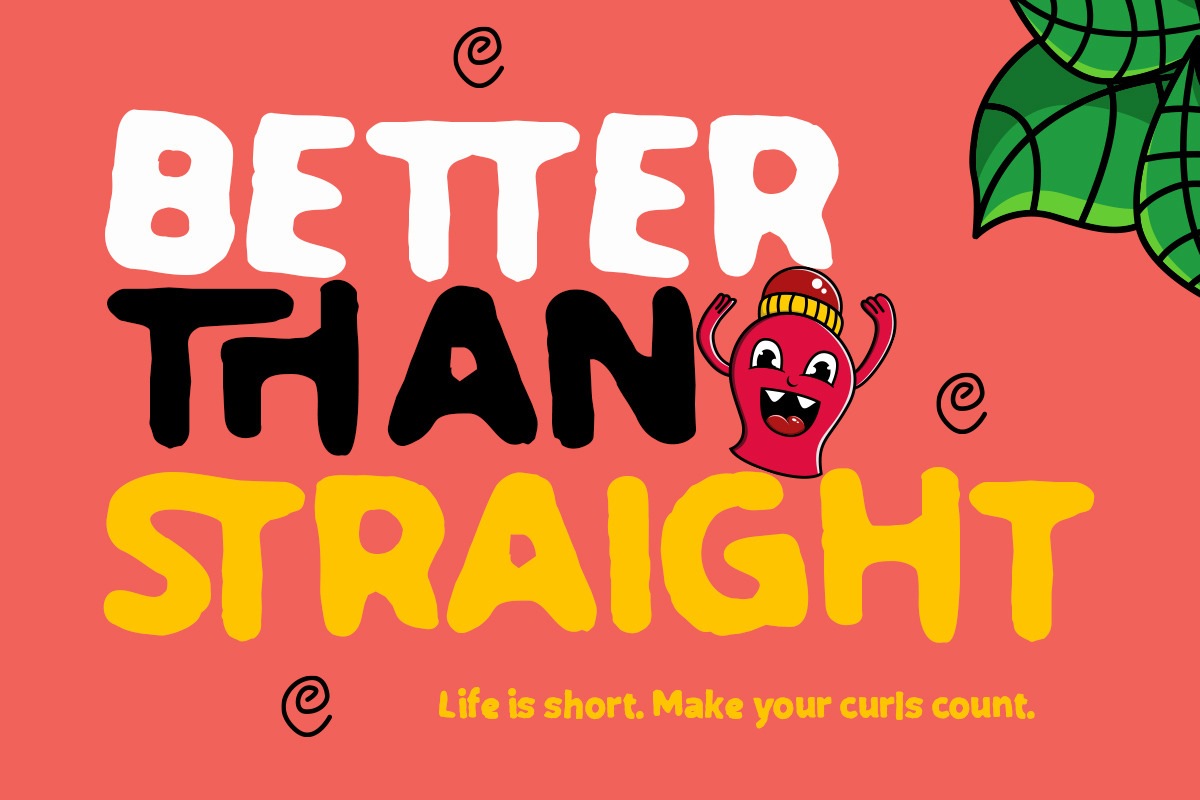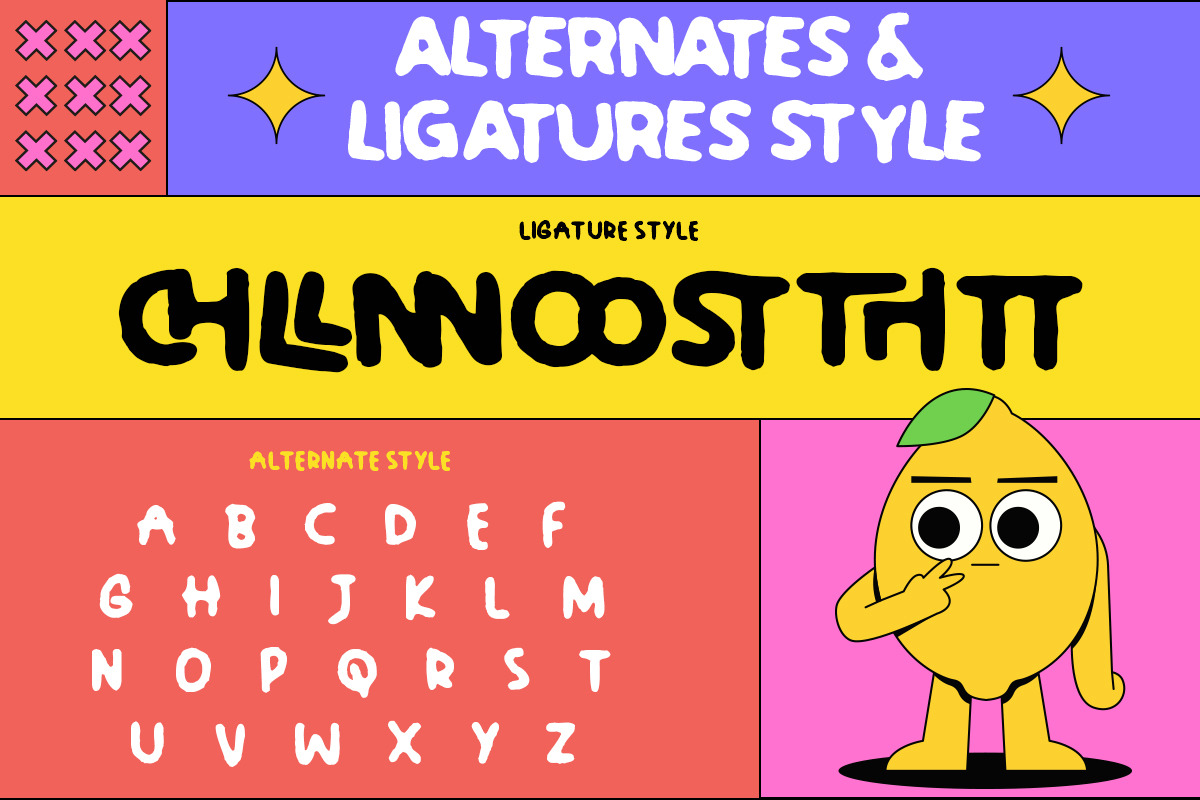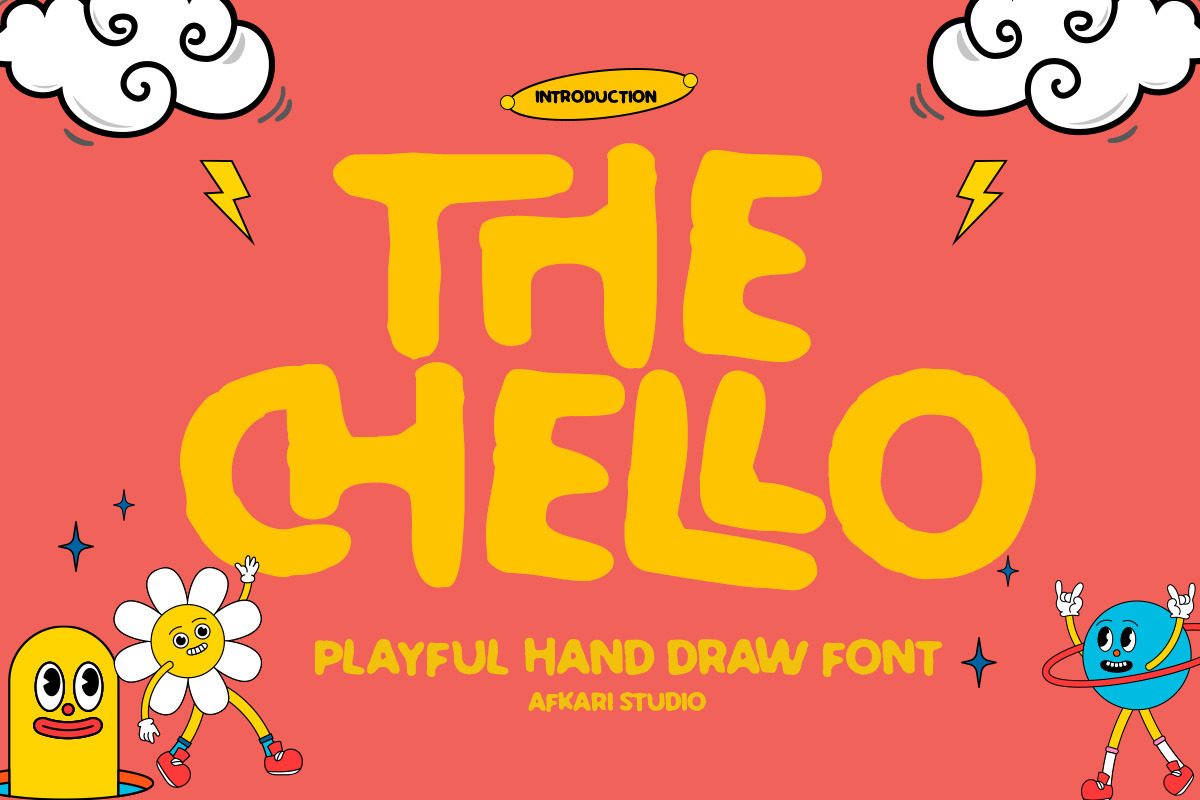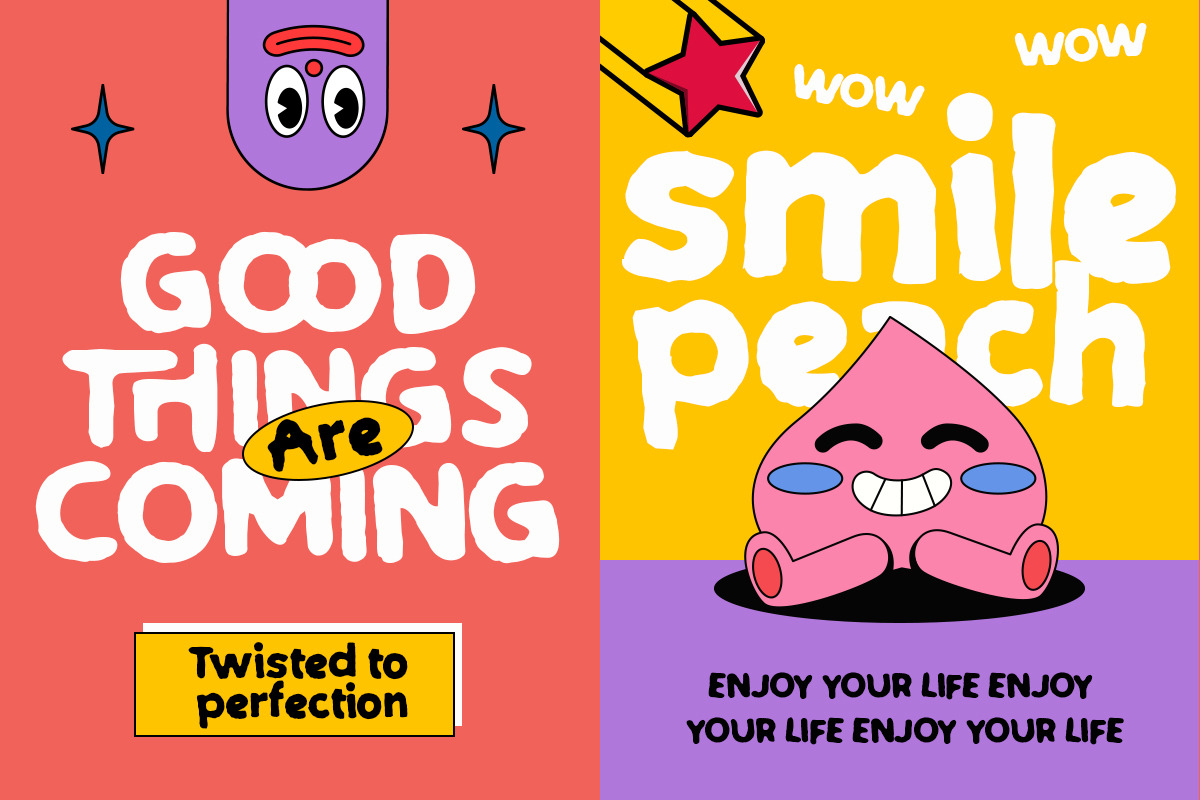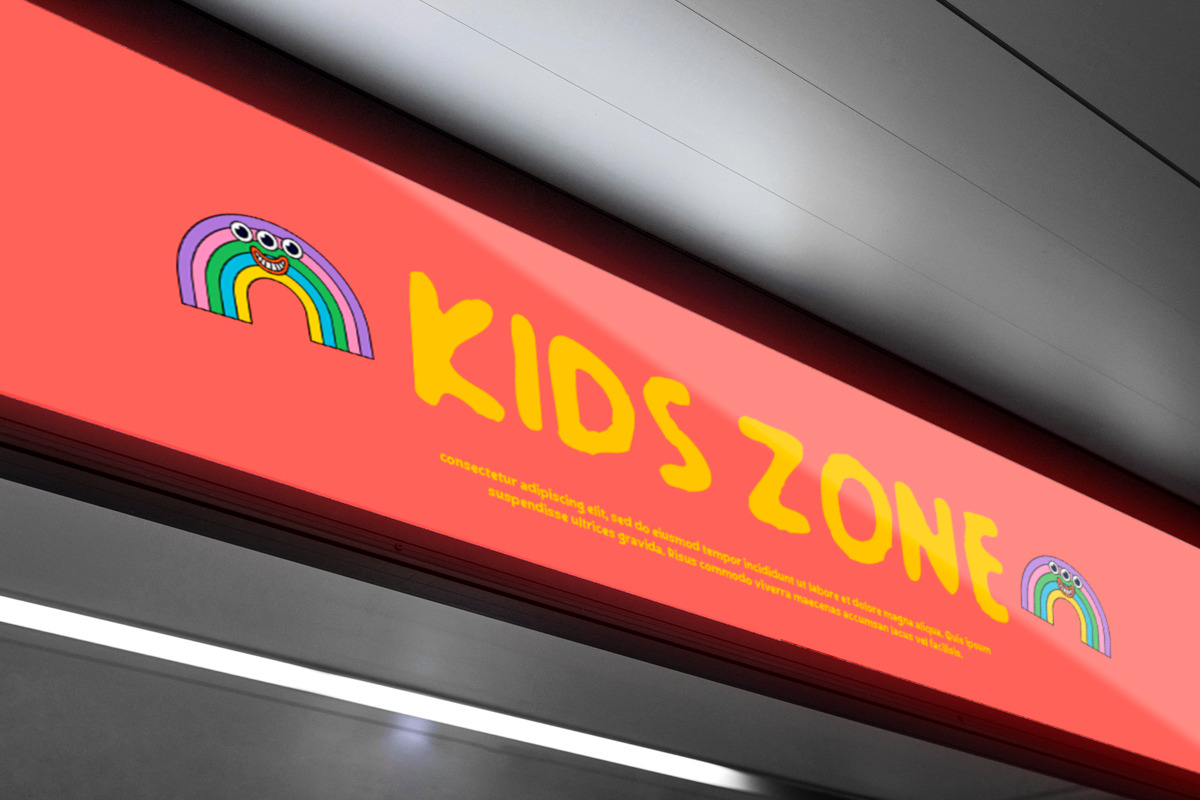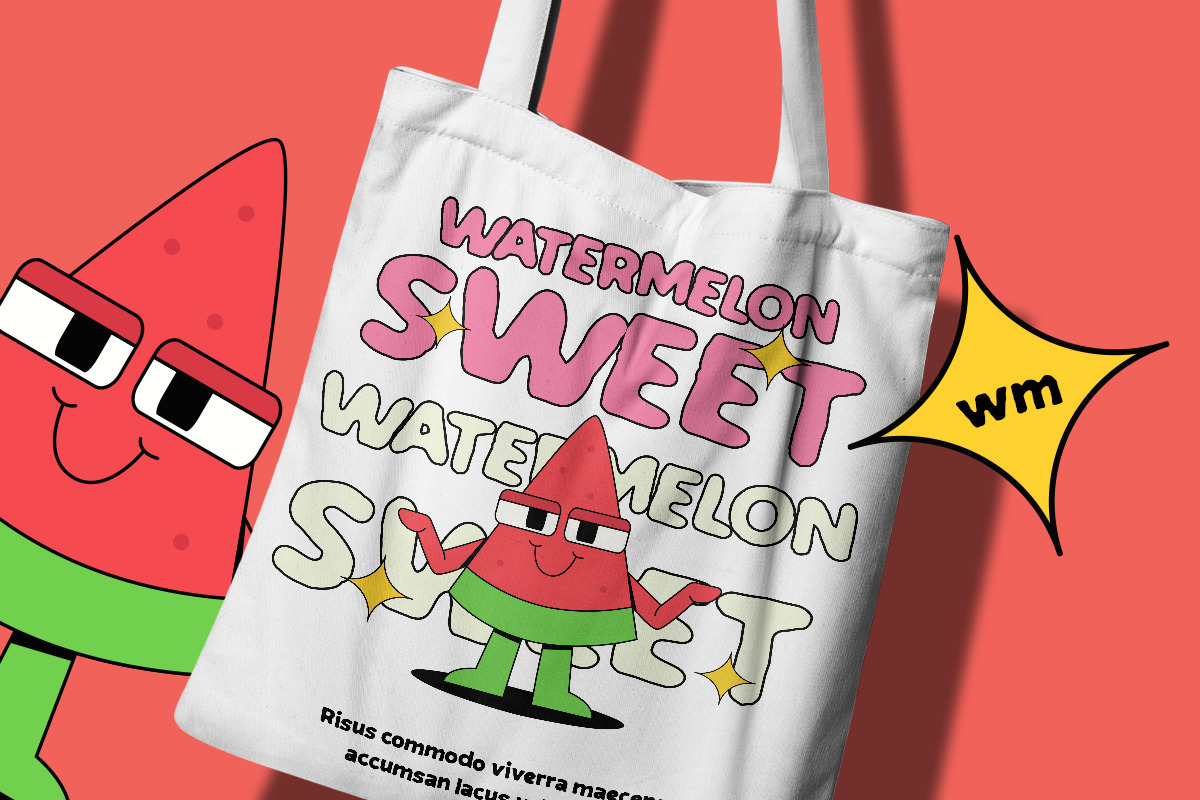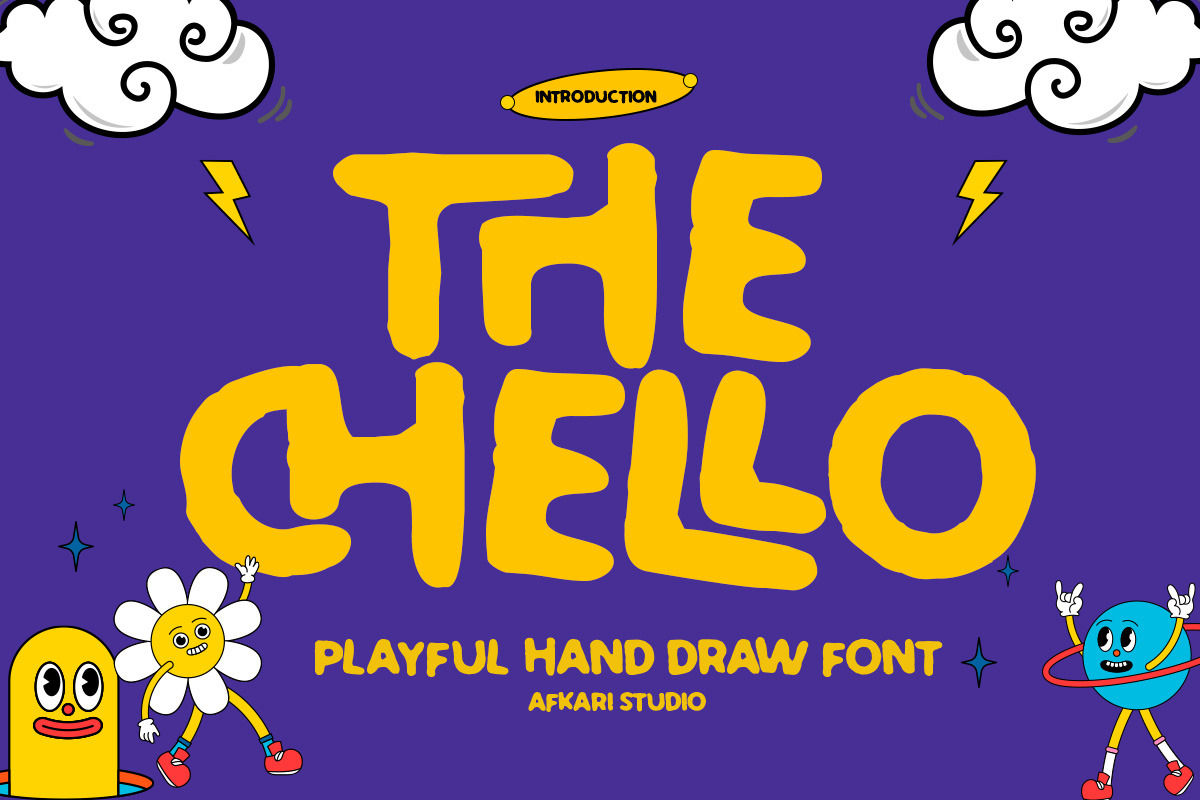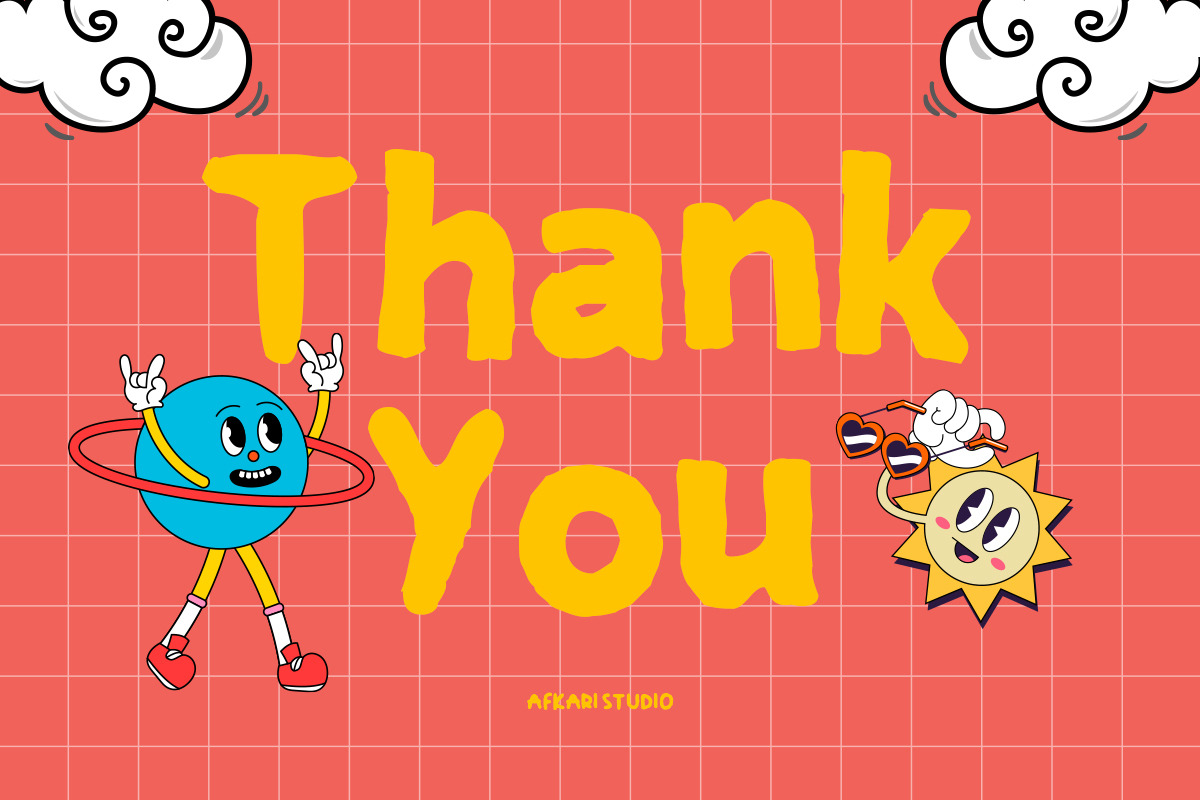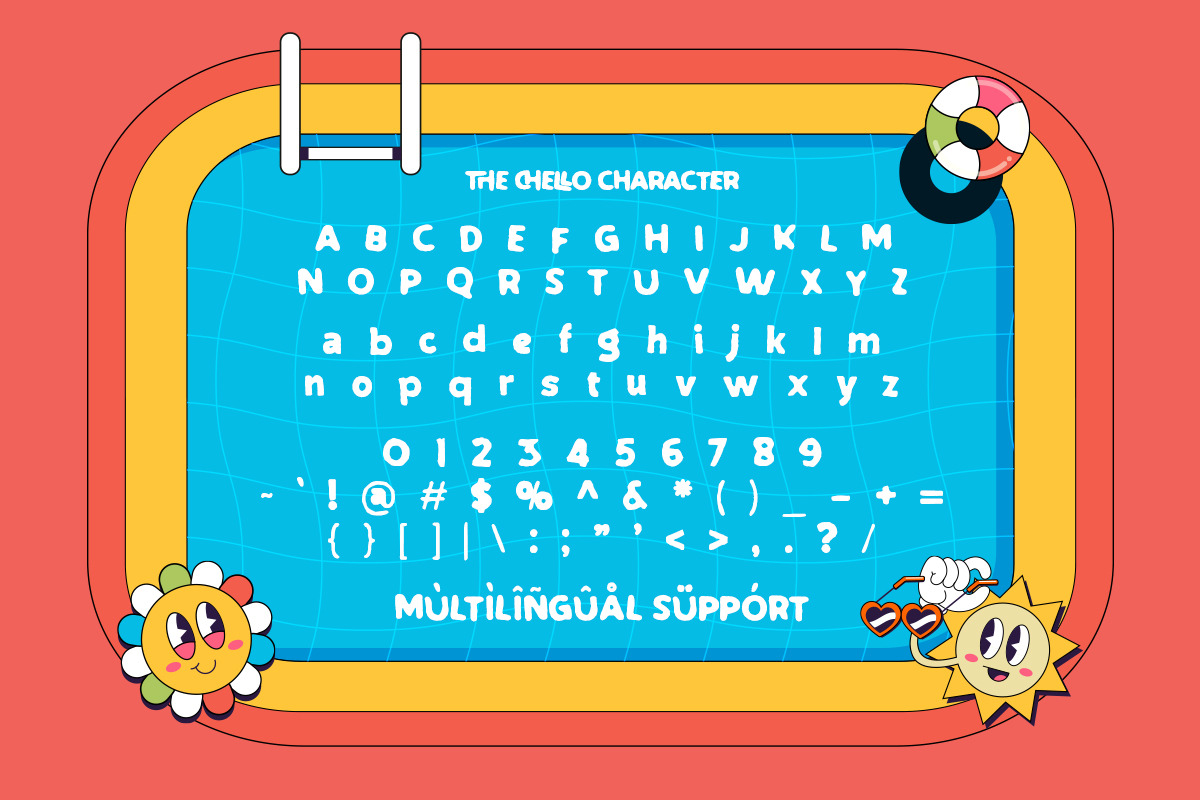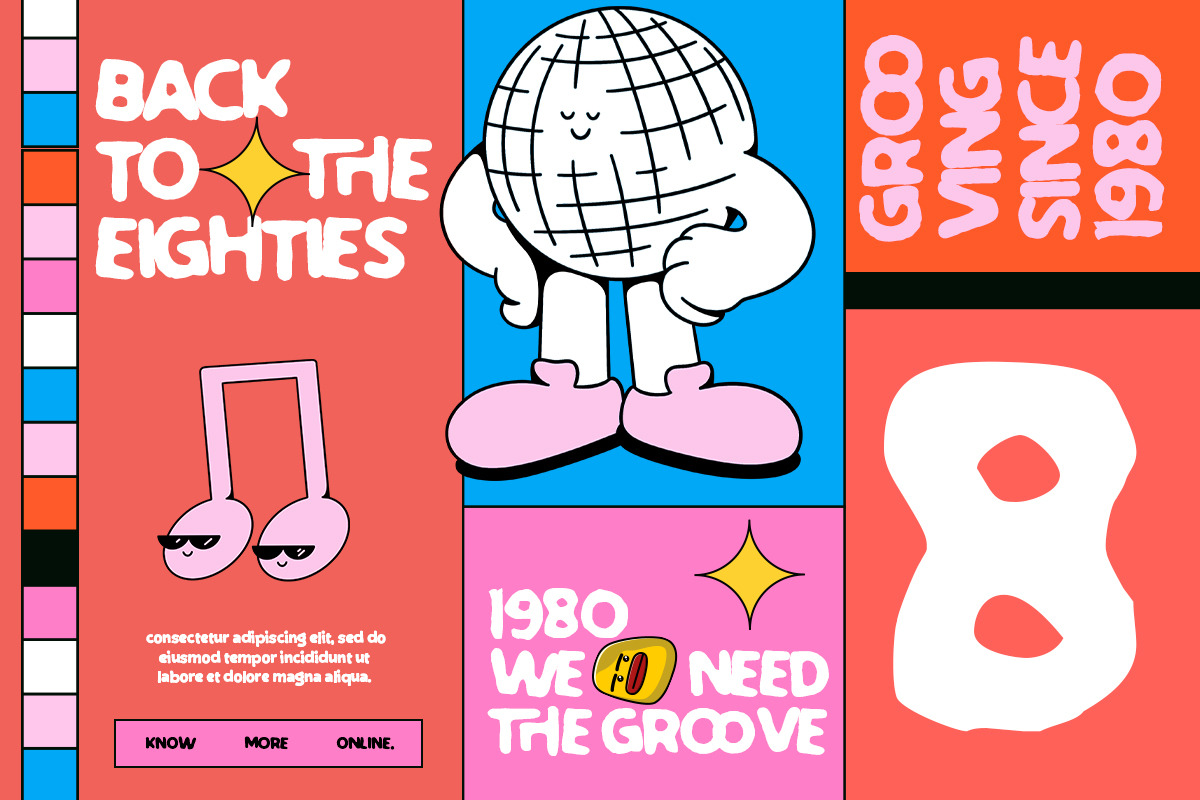
The Chello - Playful Display Font
The Chello is a playful display font designed to bring joy, creativity, and lively personality into your designs. With its bold shapes and friendly character, this font creates an eye-catching and cheerful appearance that instantly makes designs feel more fun and approachable.
Featuring smooth curves and playful letterforms, The Chello works beautifully for projects that need a friendly and energetic tone. Whether used in headlines, branding, or creative promotions, this font keeps text readable while adding a distinctive playful charm.
Perfect for designers looking to create typography that feels fun, modern, and expressive, The Chello adds a delightful touch to both digital and print projects.
Highlighted Features:
- Clean, modern letterforms
- Mültîlíñgúãl Sùppört for; ä ö ü Ä Ö Ü ß ¿ ¡
Add cheerful personality and bold fun into your designs with The Chello – Playful Display Font, a typeface created to make creative projects stand out.